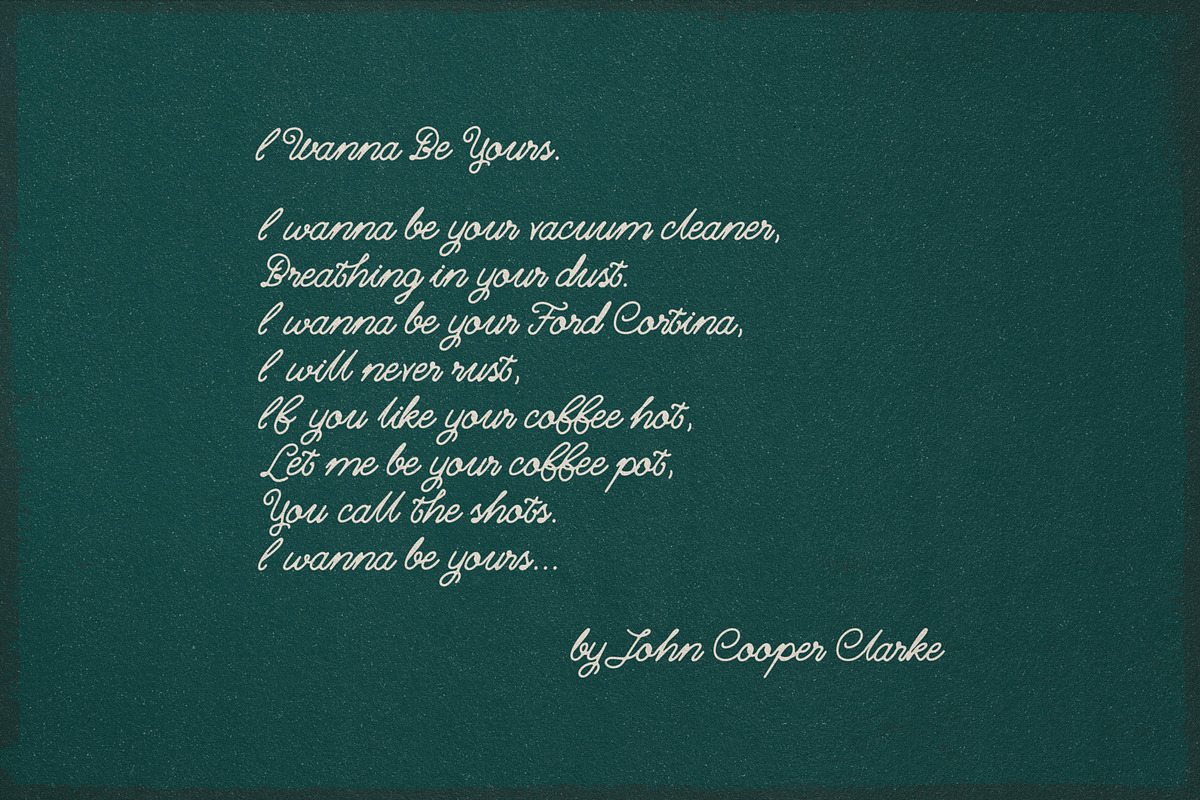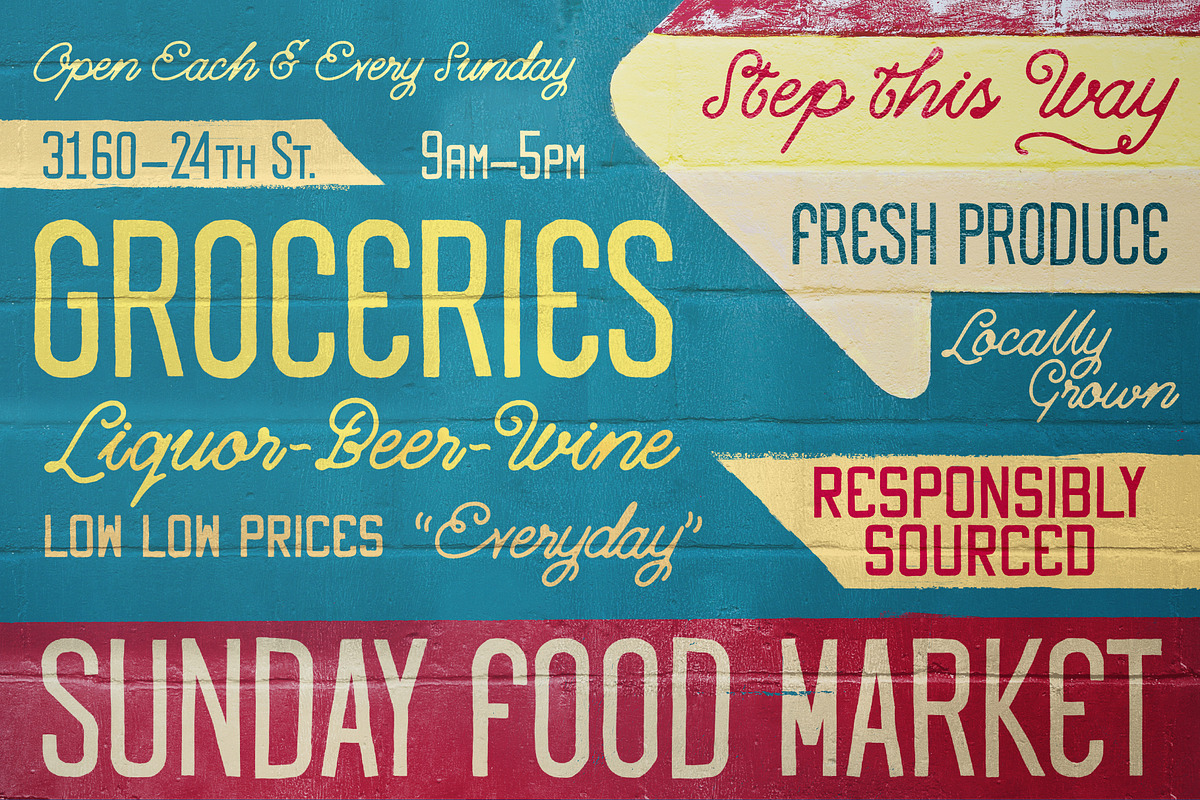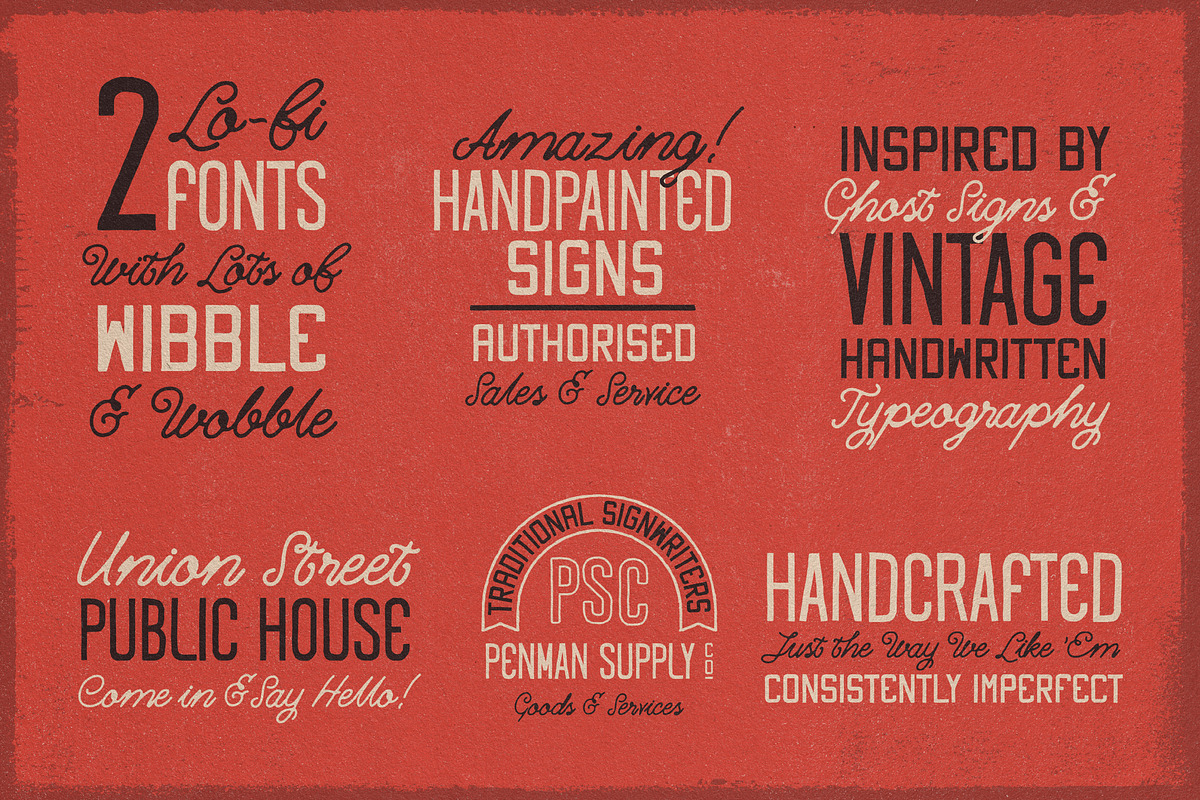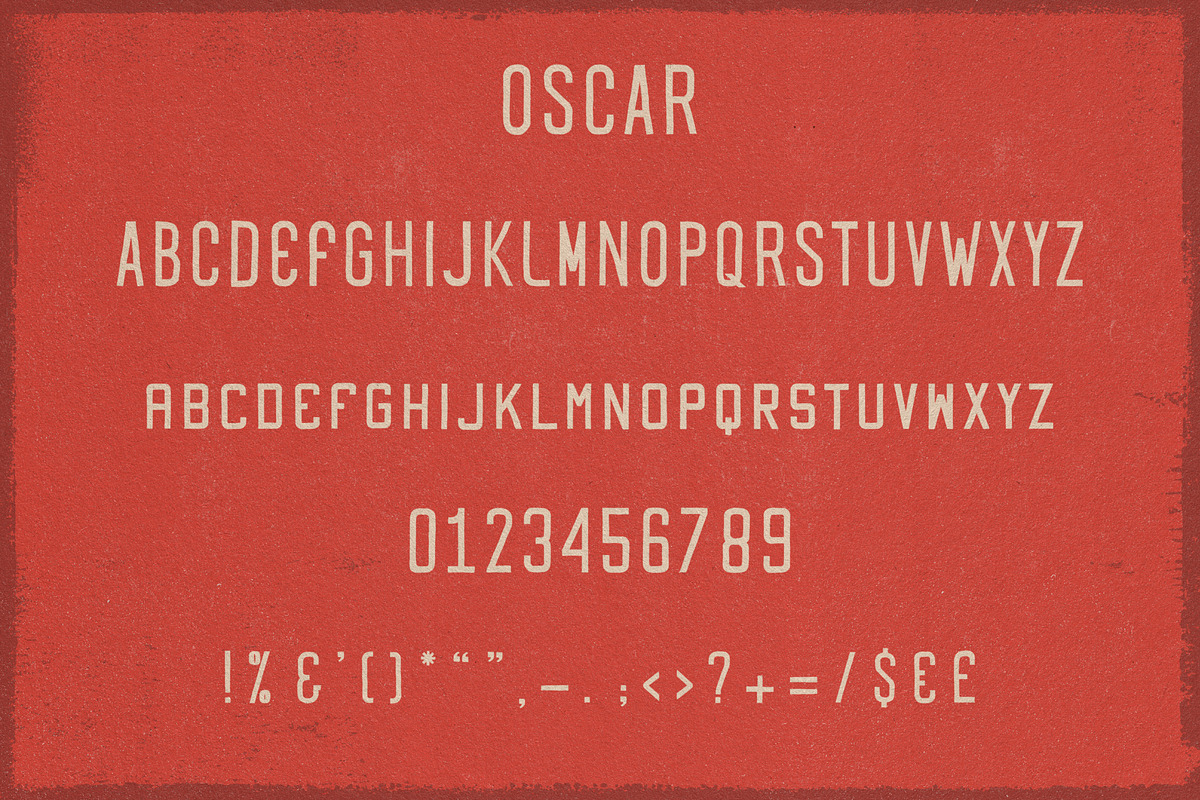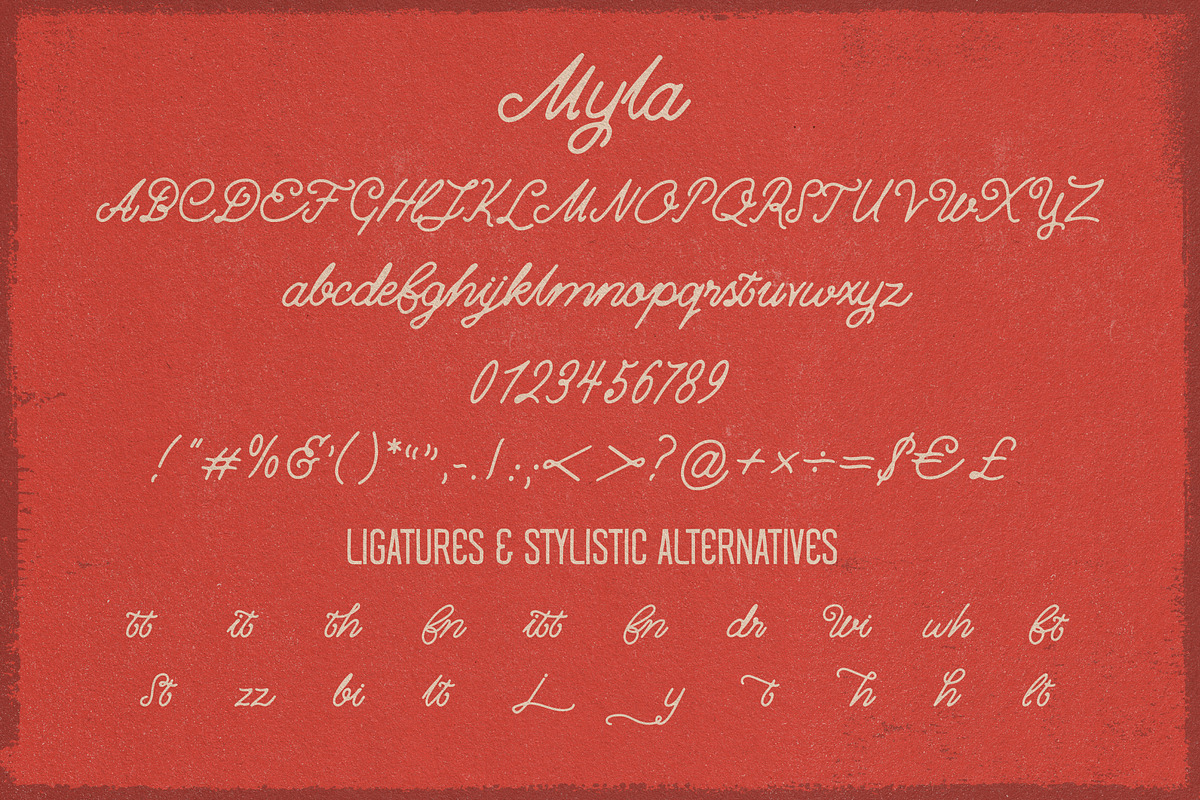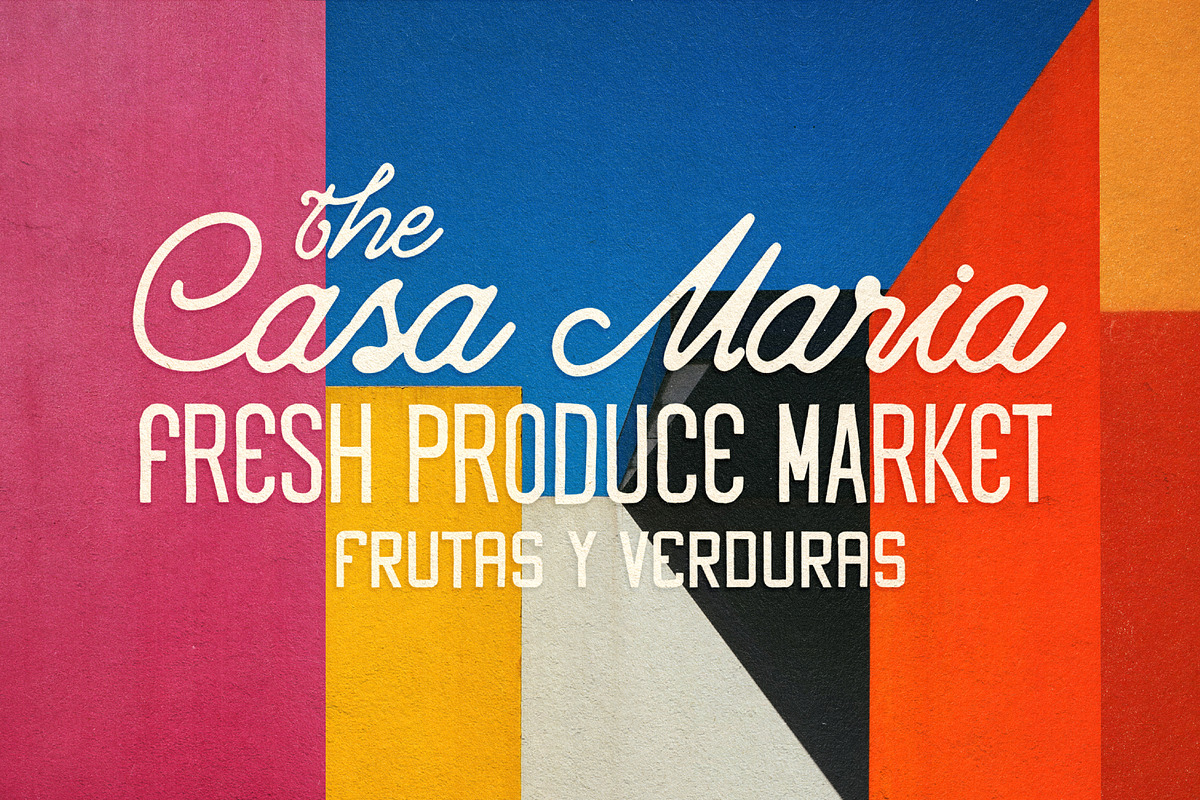
Myla & Oscar Font Duo
Myla & Oscar is a new hand crafted font created using inspiration from Vintage Sign Painting and handwritten Calligraphy. Perfect for creating branding, stationery or just adding a hand-written quality to any project! Both fonts work great as a pair as well as individually. Myla is a monoline handwritten script font and Oscar is a contrasting and complimentary Sans serif font, drawn using a thick nib Posca marker pen to create an authentic hand made look.
Oscar: Uppercase letters, numbers & punctuation.
Myla: Uppercase letters, numbers& punctuation. Plus ligatures and letter alternatives.